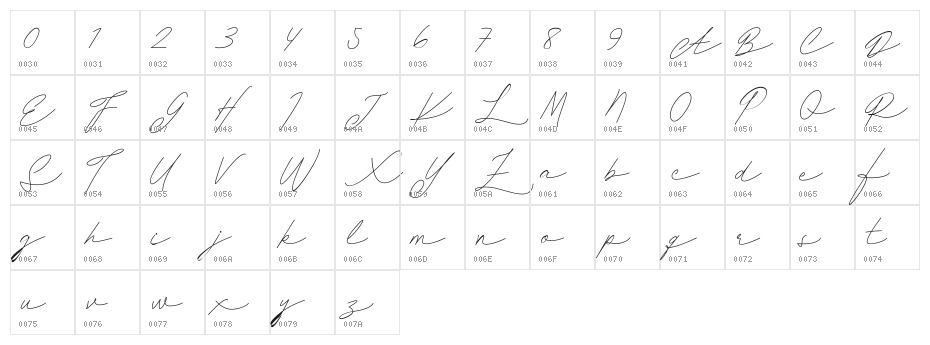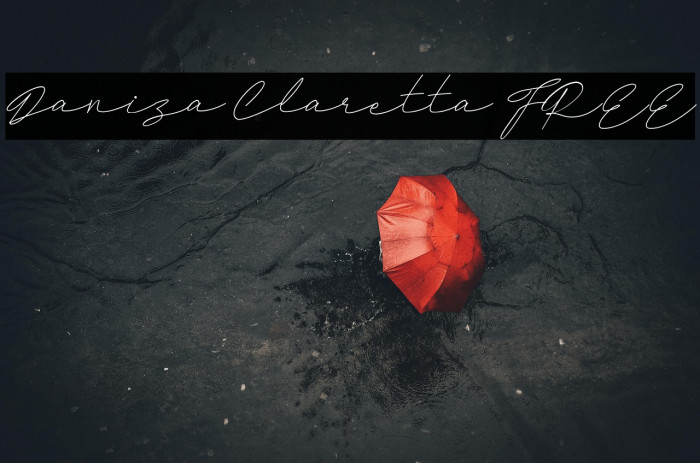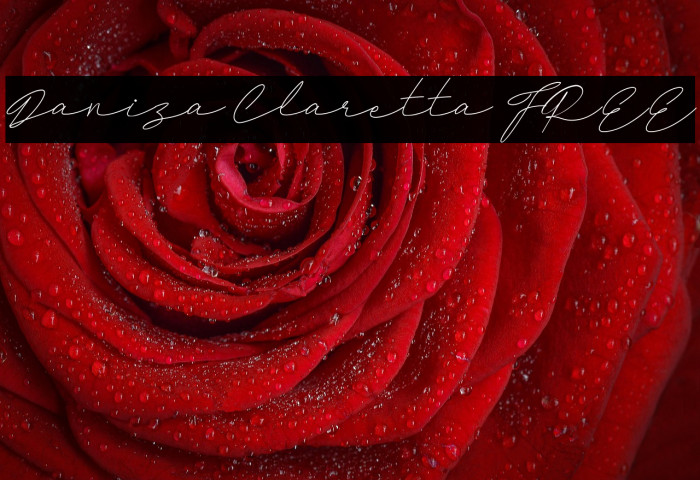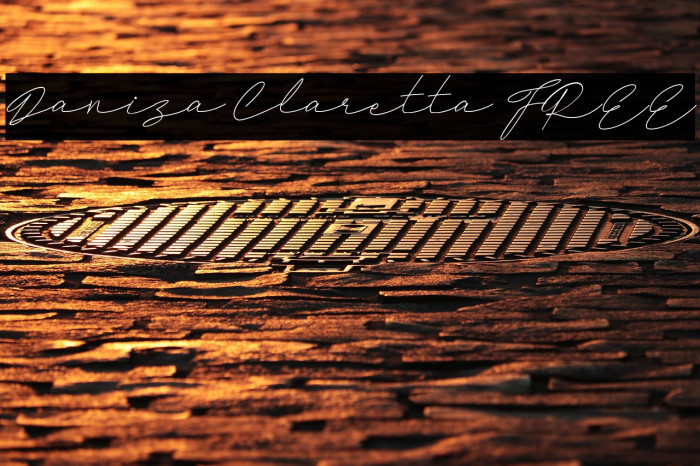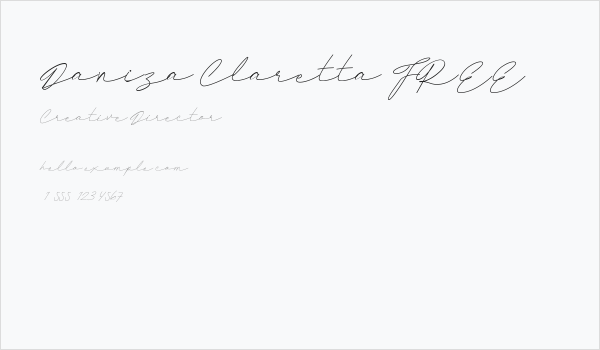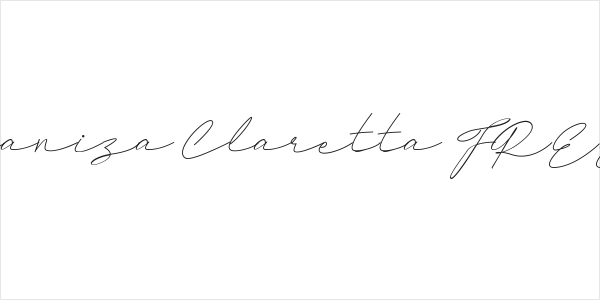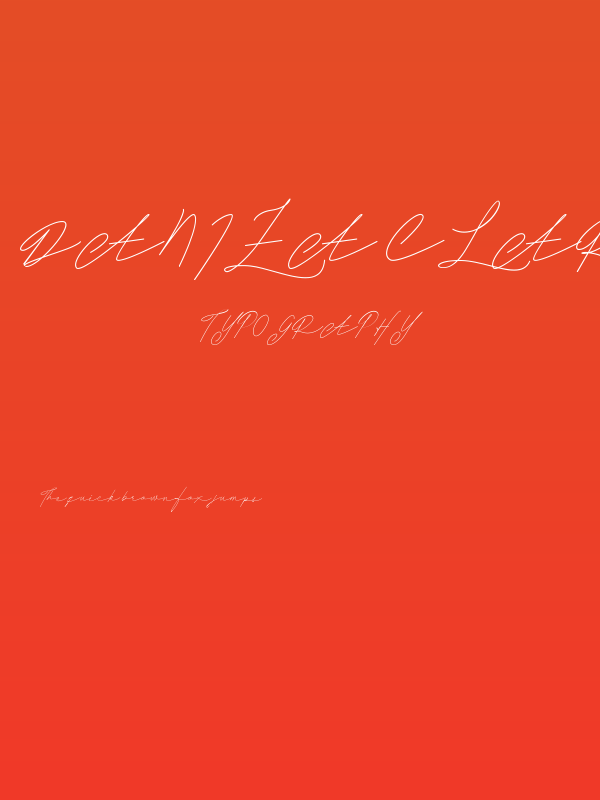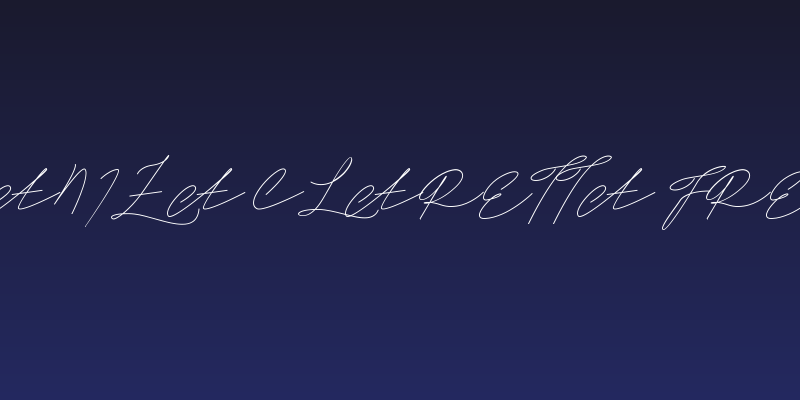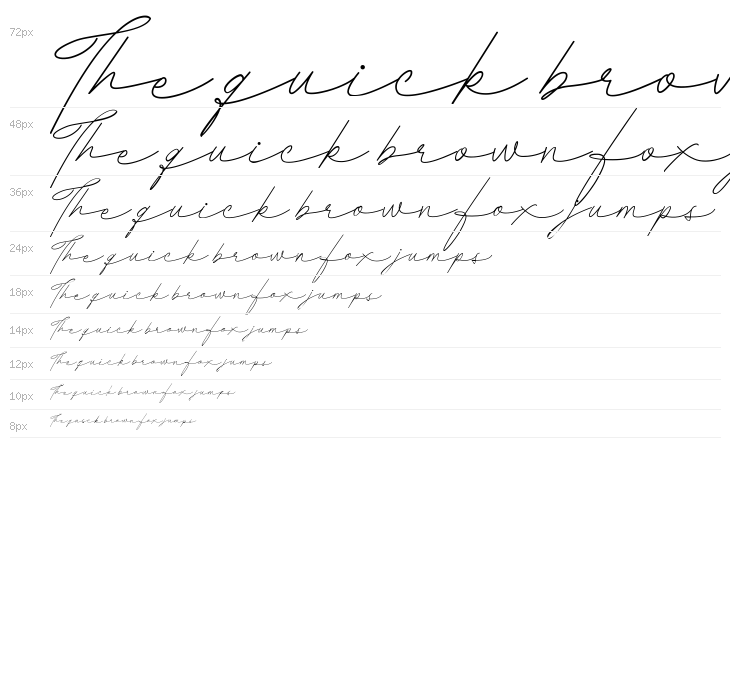
Daniza Claretta FREE Font
Daniza Claretta FREE Description
A delicate, monoline script font with a handwritten, cursive style. The characters are connected and fluid, featuring tall ascenders and long, sweeping descenders. The strokes are consistently thin, giving an airy and elegant appearance.
Overall StyleDecorative, Elegant, Handwritten
Use CaseLogos, Invitations, Decorative text, Quotes
Proposed ProjectsWedding invitations, personal branding, greeting cards, elegant logos, quotes, stationery.